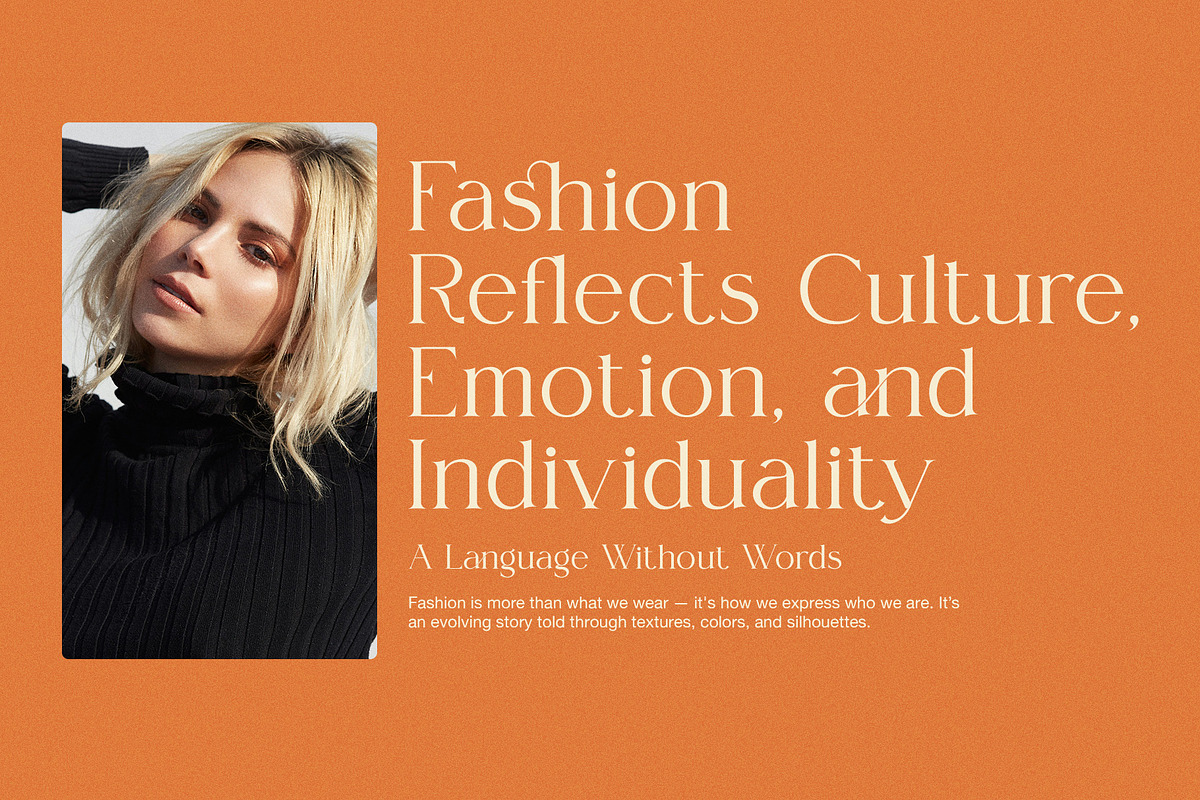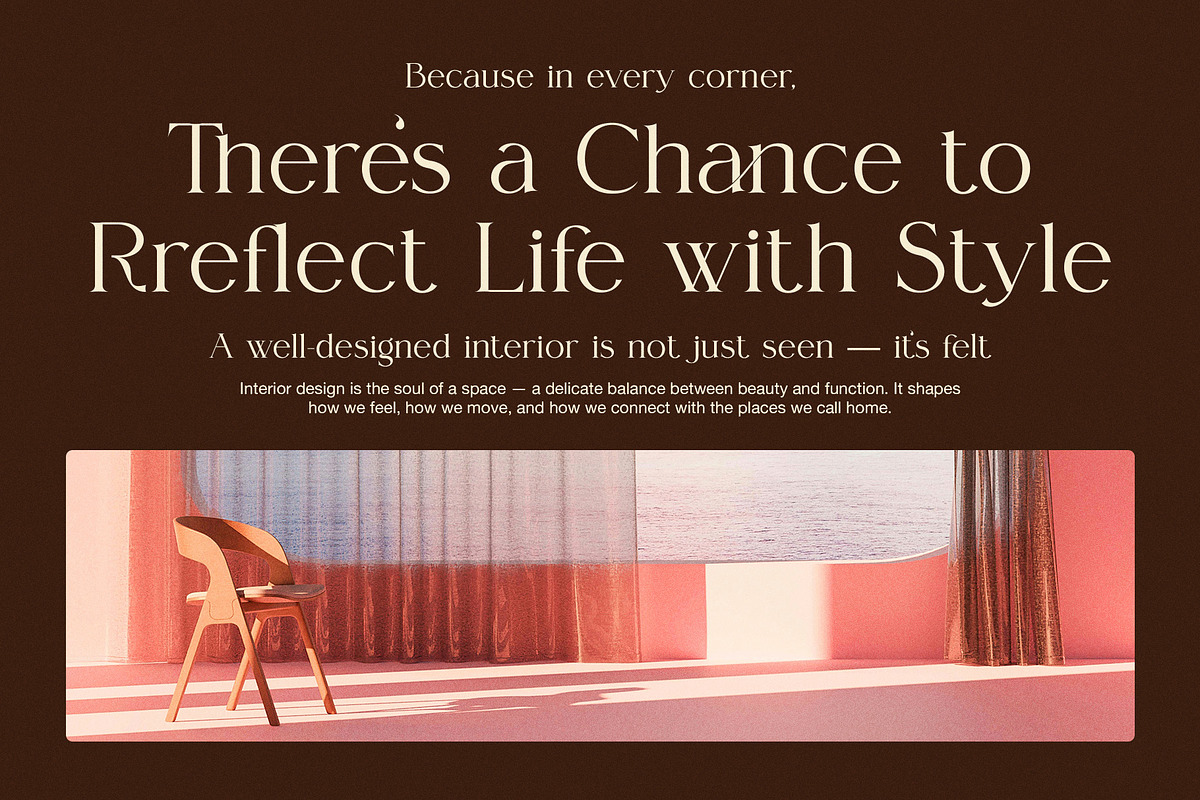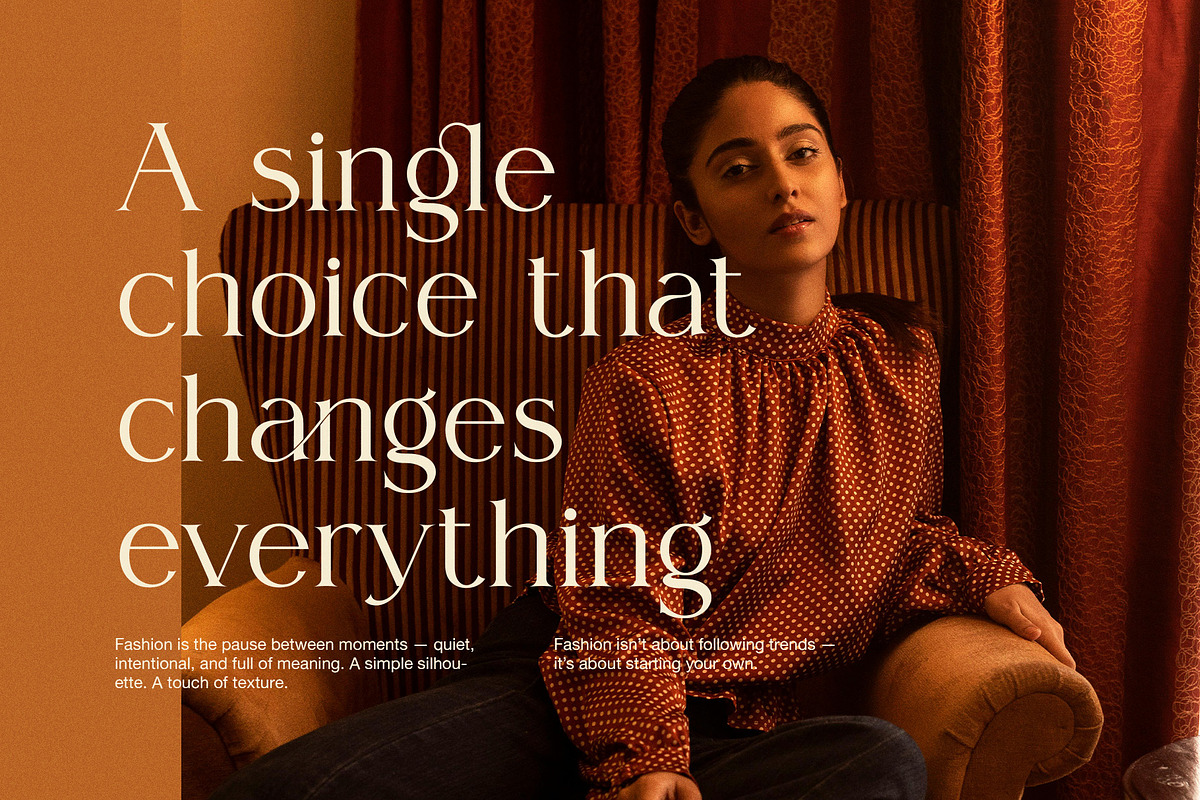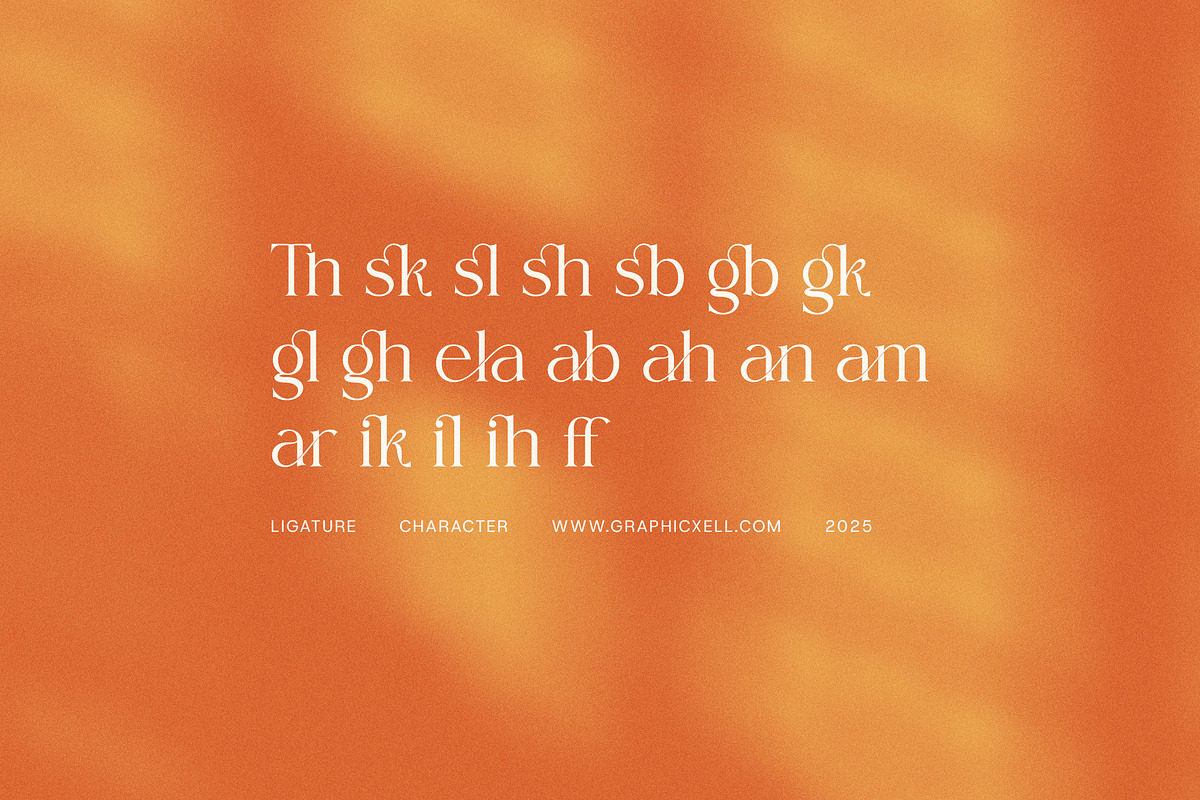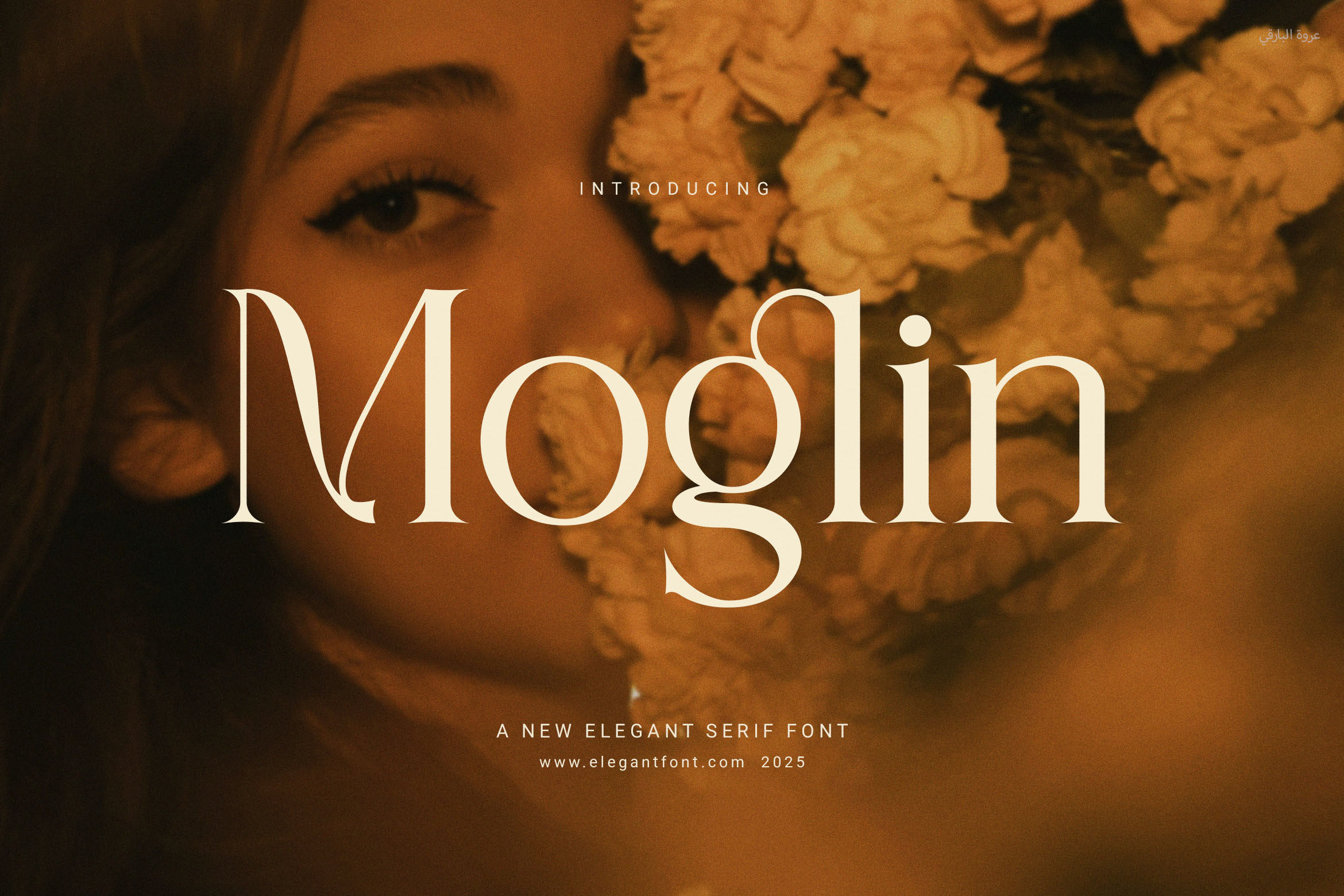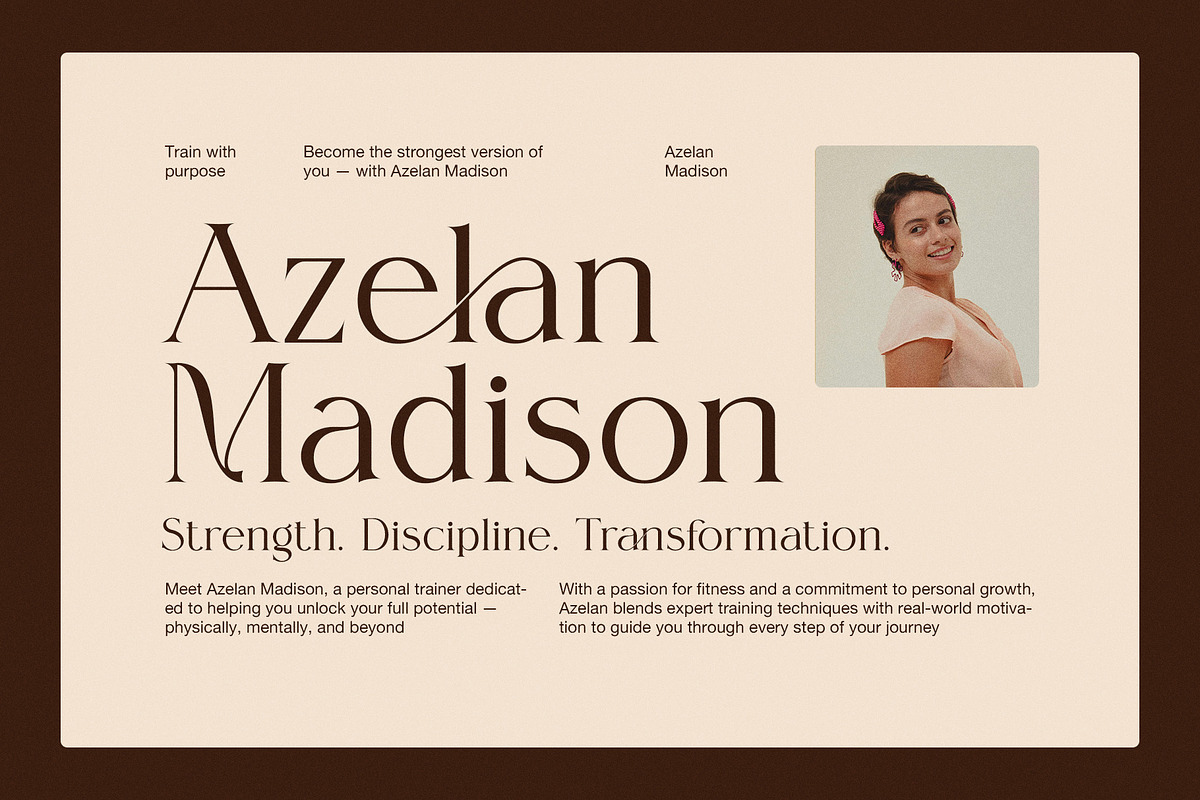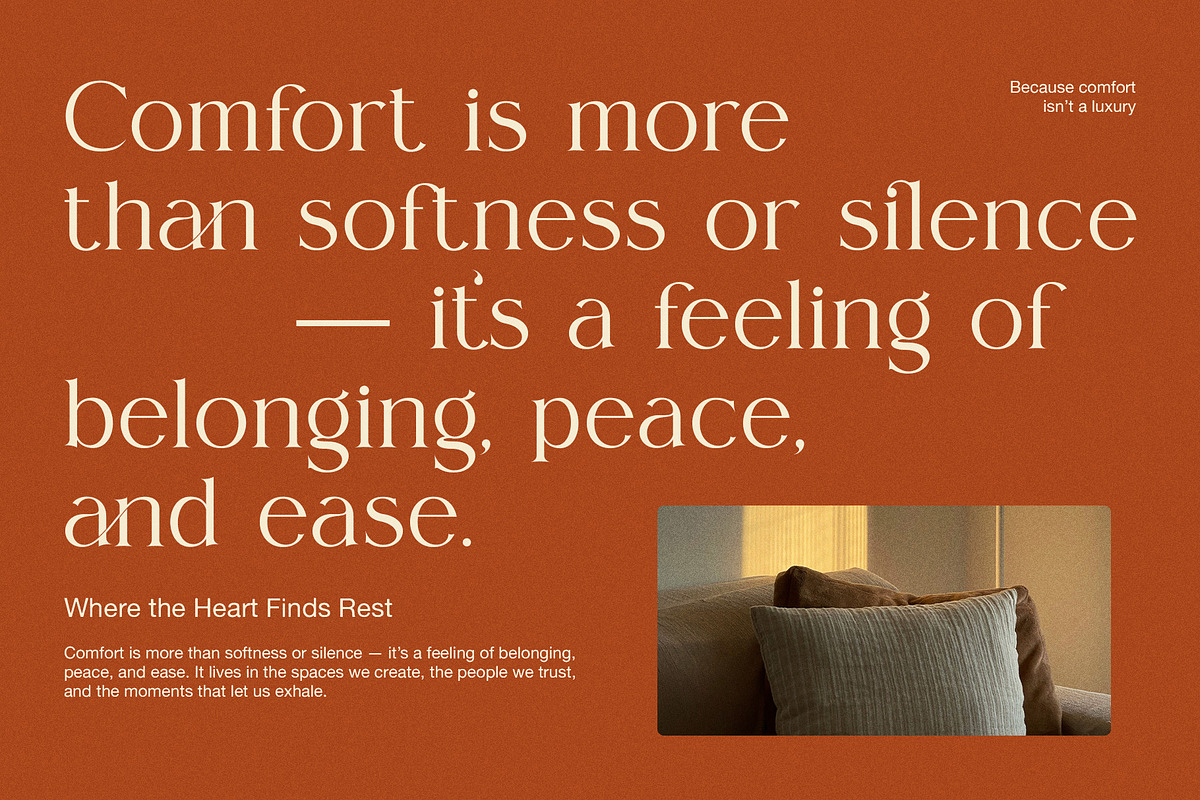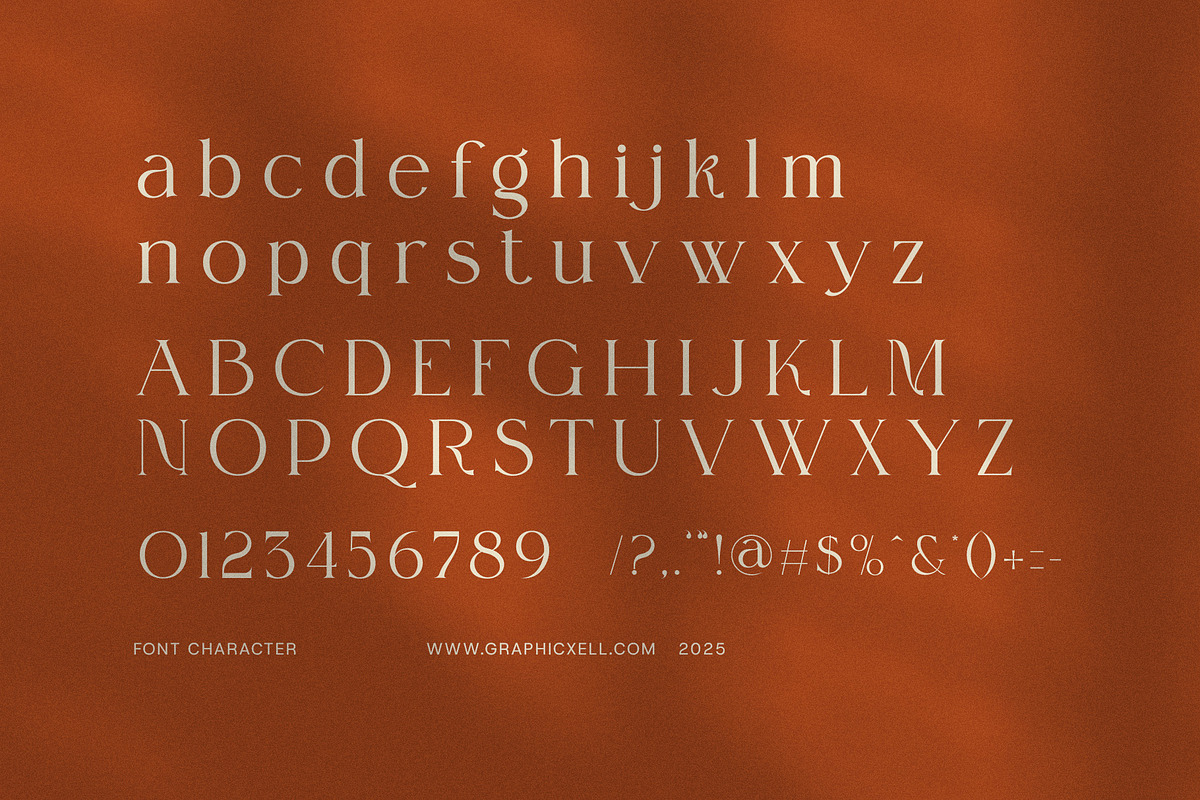
Moglin Modern Serif Font
Moglin – A Timeless Serif Font with Modern Elegance
Moglin is a modern serif font designed for elegance, clarity, and flexibility. Its soft curves and clean strokes create a refined look that feels both fresh and timeless. Because of its balanced letterforms, Moglin is ideal for a wide range of creative needs.
From the very first glance, Moglin gives your design a sense of charm and sophistication. Its smooth ligatures and proportional shapes help your text flow naturally. In addition, the font remains highly readable—even at smaller sizes.
Here’s Why Moglin Stands Out:
Modern serif design with soft, elegant shapes
Functional ligatures to improve flow and detail
Strong readability at both large and small sizes
Looks beautiful in print and digital designs
Includes full alphabet, numbers, and punctuation
Whether you're working on branding, product packaging, or social media content, Moglin adapts with ease. For instance, you can use it for logo design, magazine titles, menus, or wedding invitations. It fits boutique brands, luxury products, and modern editorials equally well.
Moreover, Moglin offers creative flexibility. You can pair it with minimal layouts or bold visuals. Its timeless feel allows it to match many design styles—without ever losing its charm.
If you want a serif font that’s elegant, versatile, and simple to use, Moglin is the perfect fit. It helps your work look polished while keeping the message clear and stylish.